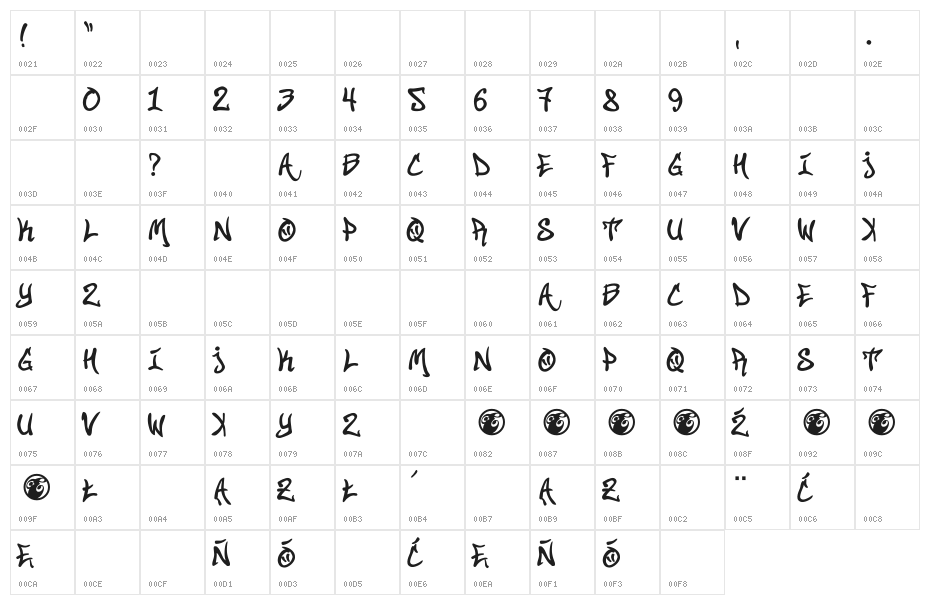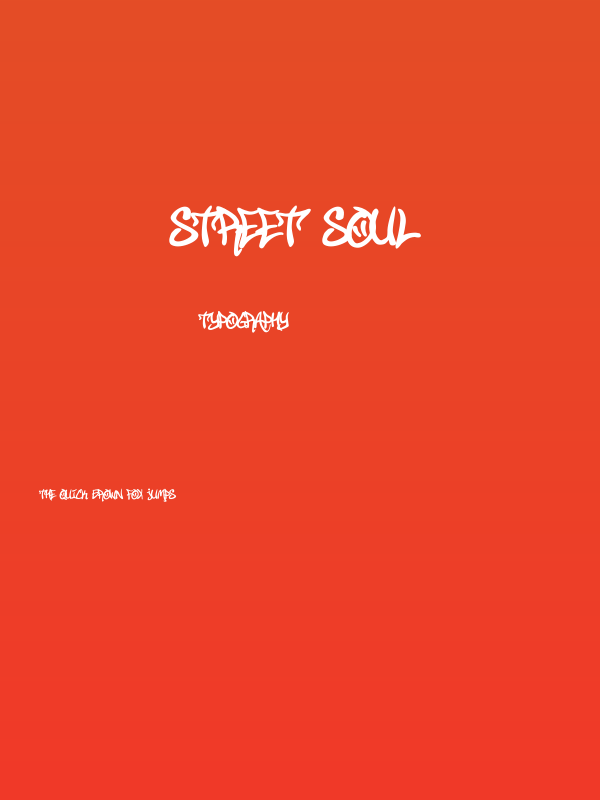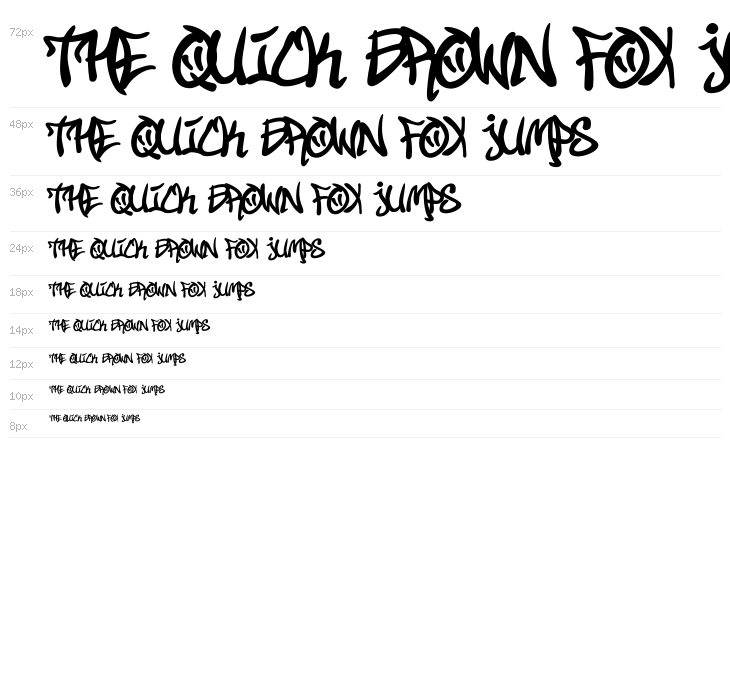
Street Soul Font
Street Soul Description
This font embodies a bold and expressive graffiti style, characterized by its dynamic and energetic letterforms. The strokes are thick and fluid, with a sense of movement and spontaneity that captures the essence of street art. Each character is uniquely crafted, with exaggerated curves and angles that give the font a rebellious and urban feel. The uppercase and lowercase letters maintain a consistent style, while the numbers and special characters integrate seamlessly into the overall design. The font's aesthetic is both edgy and artistic, making it ideal for projects that require a strong visual impact.
Overall StyleUrban, Edgy, Artistic
Use CaseLogos, Posters, Headlines
Proposed ProjectsPerfect for street art projects, urban-themed designs, music album covers, and event posters.